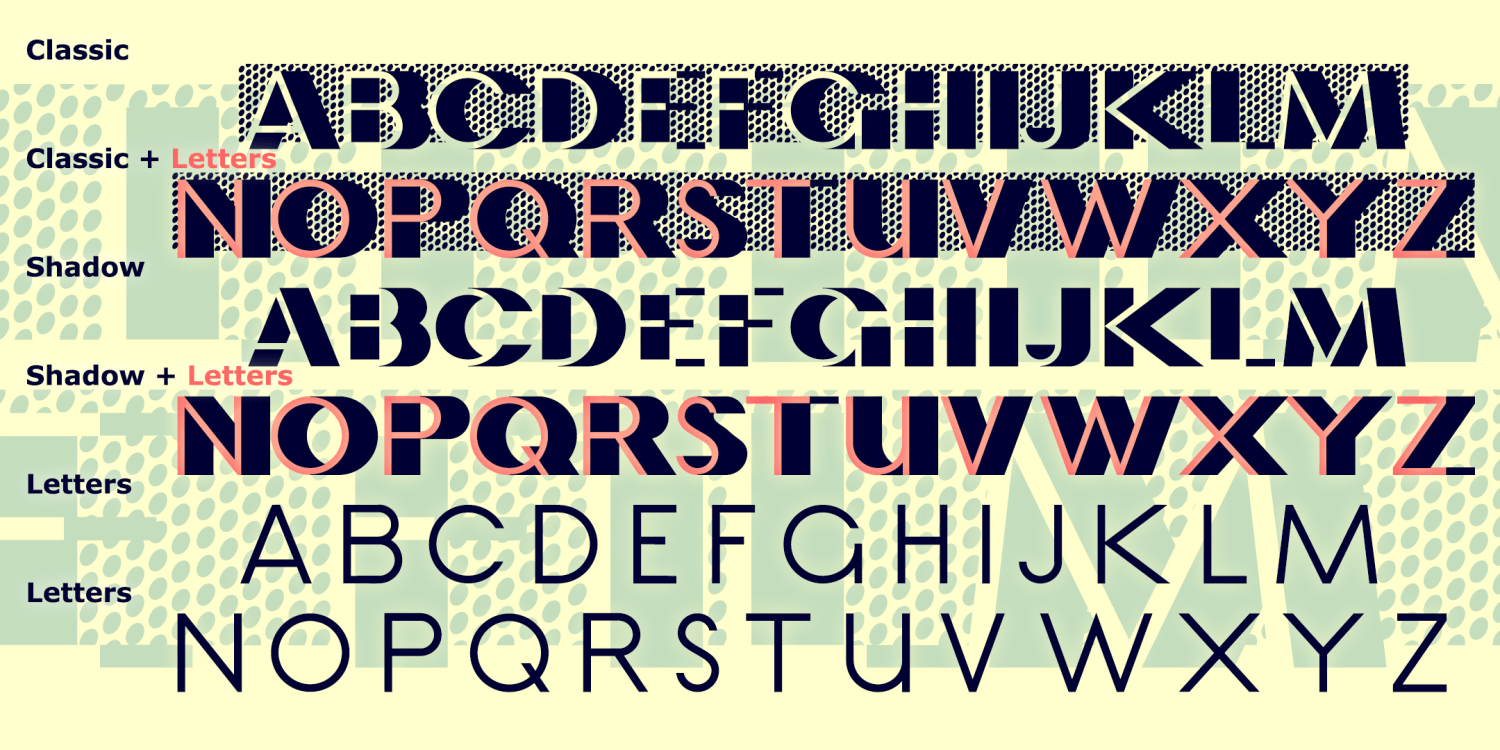
Le Film
About Le Film
LE FIL< is my digital interpretation of the classic analog Art Deco font of the same name. Bold shadows and heavy dot shading give this a dramatic look. Le Film (variously known as Film and Initiales Film) was designed by Marcel Jacno and released…